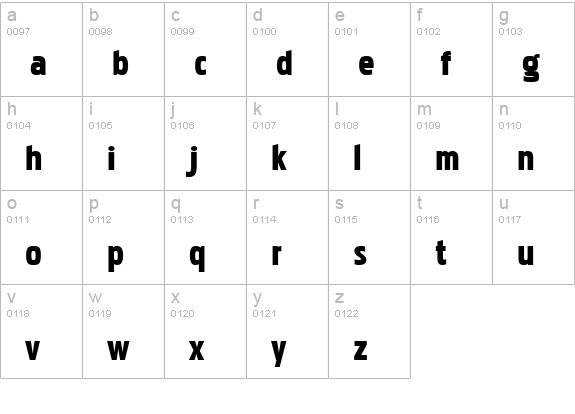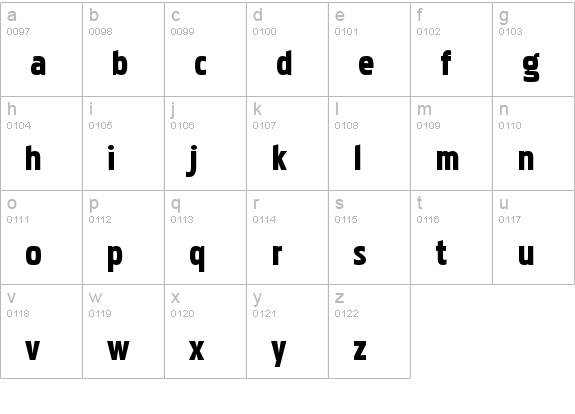
Pakenham Blk font is a bold and impactful typeface that exudes strength and authority. With its clean lines and sharp edges, this font is perfect for making a powerful statement in any design project. Whether you're looking to create eye-catching headlines or strong logo designs, Pakenham Blk font is sure to leave a lasting impression. The best part? Pakenham Blk font is available for free download at FontsMarket.com. Simply head over to the website and grab this versatile font to add a touch of boldness to your creative projects. Don't miss out on this opportunity to enhance your designs with the striking Pakenham Blk font - download it now and let your creativity shine!